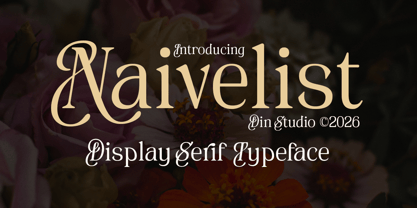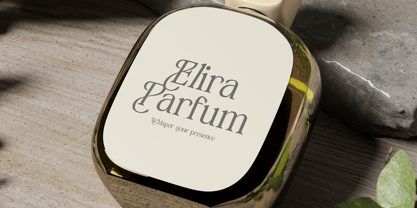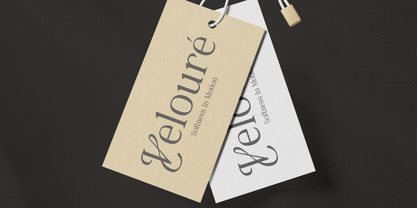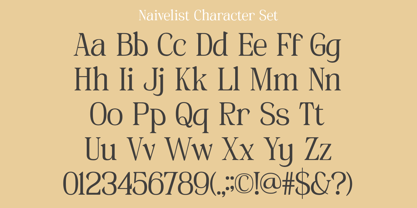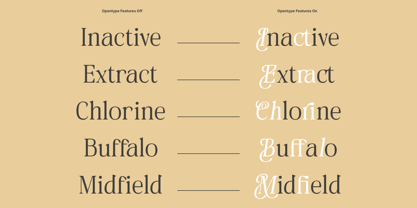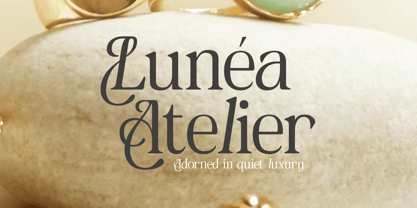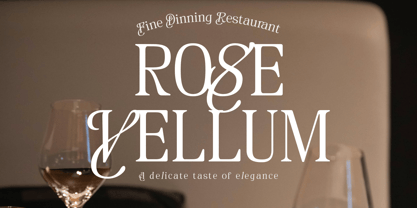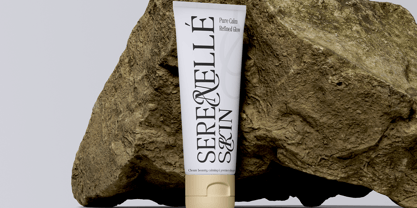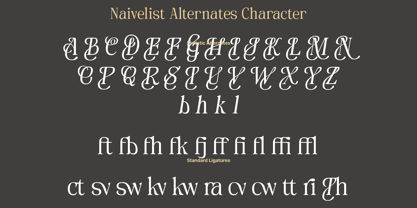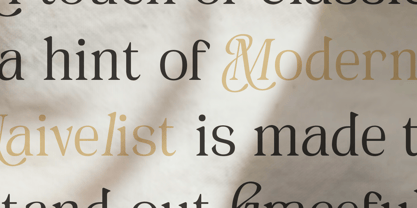
Naivelist
The Naivelist Font Family was designed by Donis Miftahudin and published by Din Studio. Naivelist contains 1 styles. More about this family
Naivelist is a refined serif display font that embodies elegance, sophistication, and modern luxury. Designed with a thin weight and striking visible contrast, this typeface captures the essence of high-end editorial design while maintaining a timeless aesthetic. Its graceful letterforms, sharp serifs, and delicate strokes create a visually captivating experience that instantly elevates any creative project. In addition, enjoy the features here. Features: Alternates Ligatures Multilingual Supports PUA Encoded Numerals and Punctuations Naivelist fits in logos, quotes, branding, posters, and many more designs. Find out more ways to use this font by taking a look at the font preview. Thanks for purchasing our fonts. Hopefully, you have a great time using our font. Feel free to contact us anytime for further information or when you have trouble with the font. Thanks a lot and happy designing.
Din Studio is a type design studio founded by Donis Miftahudin in 2017. The studio focuses on creating unique and visually appealing script and display fonts that stand out in the industry. Donis Miftahudin is a well-known type designer in the industry and has created several popular fonts under the Din Studio brand.The fonts designed by Din Studio are characterized by their distinct style and aesthetic appeal. The studio's designs often incorporate unique elements, such as intricate ligatures and swashes, to create fonts that are not only visually stunning but also highly functional. The studio's fonts are often used in a variety of applications, including branding, advertising, and editorial design.Din Studio's fonts are highly regarded in the design community and have received recognition from industry publications and organizations. The studio has been featured in several design blogs and magazines, and its fonts have won awards at prestigious design competitions.One of the hallmarks of Din Studio's work is its commitment to innovation and experimentation. The studio is constantly exploring new techniques and approaches to type design, pushing the boundaries of what is possible in the field. This dedication to innovation has helped Din Studio establish itself as one of the most exciting and influential type design studios in the industry.Overall, Din Studio is a dynamic and innovative type design studio that is pushing the boundaries of what is possible in the field. With its focus on unique and visually appealing script and display fonts, the studio is poised to continue making a significant impact in the design community for years to come.